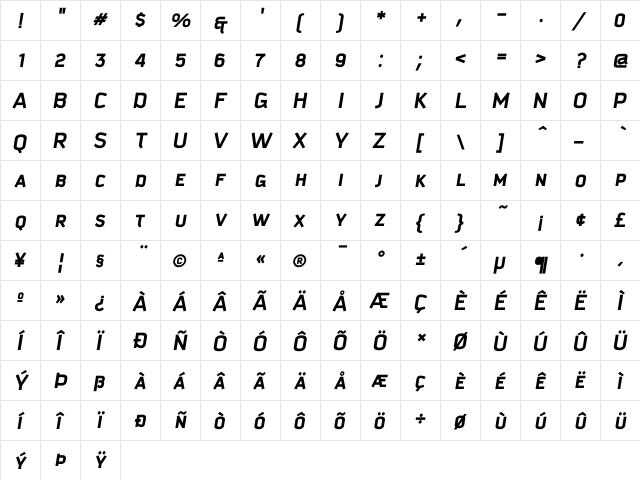
Kautiva Caps Bold Italic Font Preview
Design Context for Kautiva Caps Typeface
Kautiva Caps takes a measured approach to typography — its balanced proportions and neutral character make it a reliable workhorse for both digital and print work. The slanted form adds forward momentum and visual energy. The heavy weight commands attention and anchors typographic hierarchies.
Pro Tip: Try Kautiva Caps for annotation and caption copy alongside an upright companion — the contrast in angle creates a dynamic but ordered typographic system.